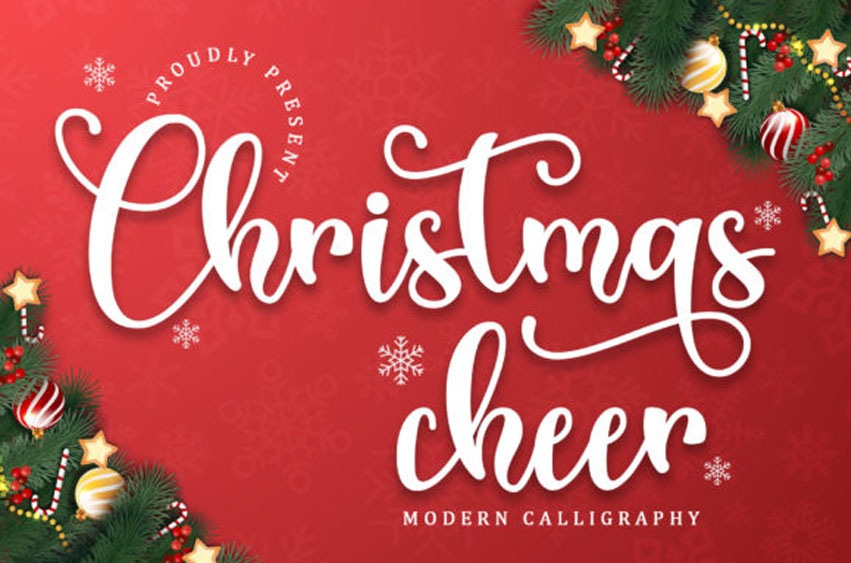
Christmas Cheer Font
Christmas Cheer Font is a lovely script font featuring charming, playful characters that seem to dance along the baseline. Add this font to your most creative ideas, and notice how it makes them stand out!